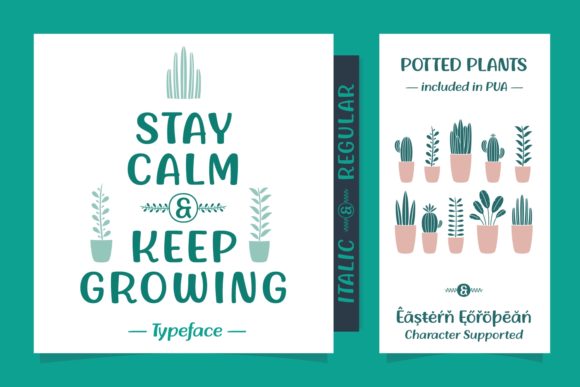
Introducing Stay Calm & Keep Growing, the most whimsical and endearing script font that will instantly transform your creative projects into charming masterpieces. With its playful and carefree strokes, Stay Calm & Keep Growing exudes a delightful personality that will capture the hearts of your audience.
Journey into a world of endless possibilities with Stay Calm & Keep Growing, the ultimate choice for designers seeking to create captivating posters that speak to the soul. Whether you're designing heartwarming invitations, enchanting logos, or eye-catching social media posts, Stay Calm & Keep Growing has the power to make your designs shine with a unique and unforgettable touch.
Unlock your creativity and let your imagination soar with Stay Calm & Keep Growing. Picture your designs adorned with this enchanting font, evoking a sense of wonder and delight. Transform ordinary words into extraordinary expressions, captivating your audience with the sheer charm and elegance of Stay Calm & Keep Growing.
Express yourself with a font that speaks volumes, even in silence. Stay Calm & Keep Growing is the perfect companion for crafting heartfelt greeting cards and personal notes that convey your emotions with unmatched sincerity. Let your words dance across the page, carrying your messages of love, gratitude, and inspiration with a touch of whimsical flair.
Stand out from the crowd and make a statement with Stay Calm & Keep Growing. Create stunning t-shirt designs that will turn heads and spark conversations. Whether you're designing for your personal wardrobe or creating a unique line for your brand, Stay Calm & Keep Growing will add a touch of magic to your creations.